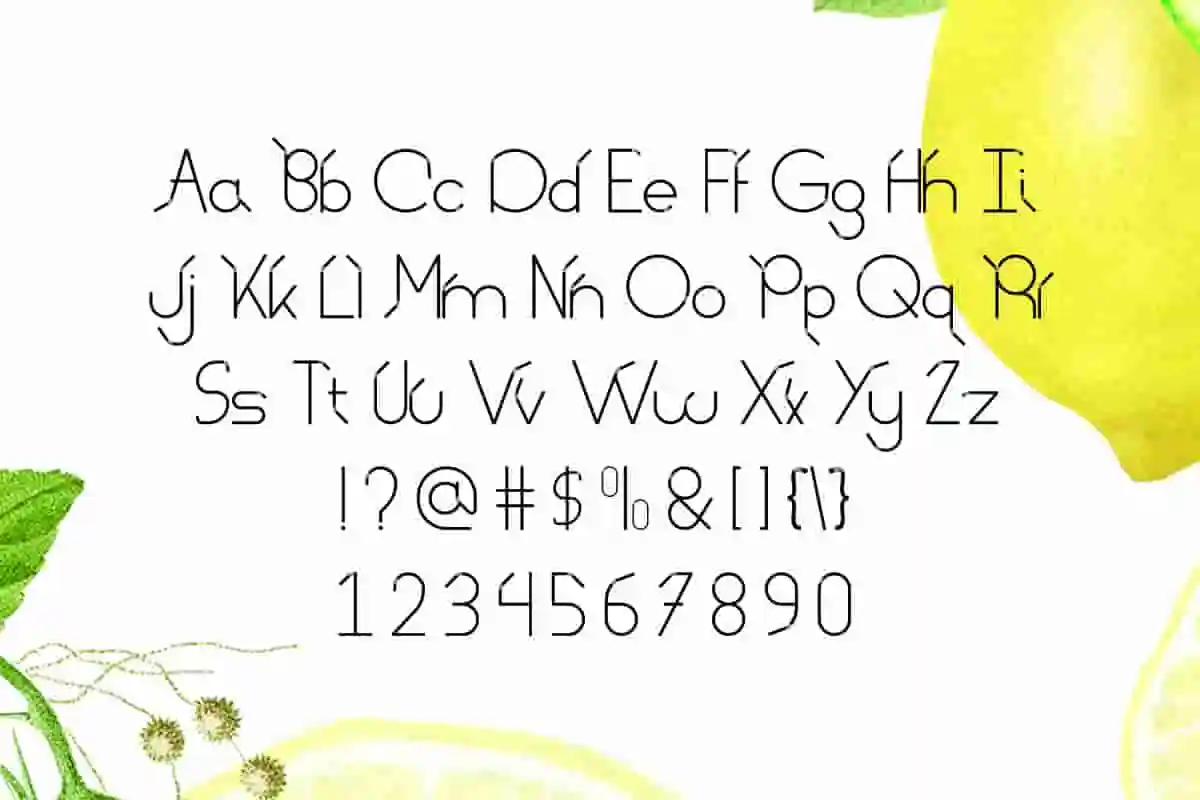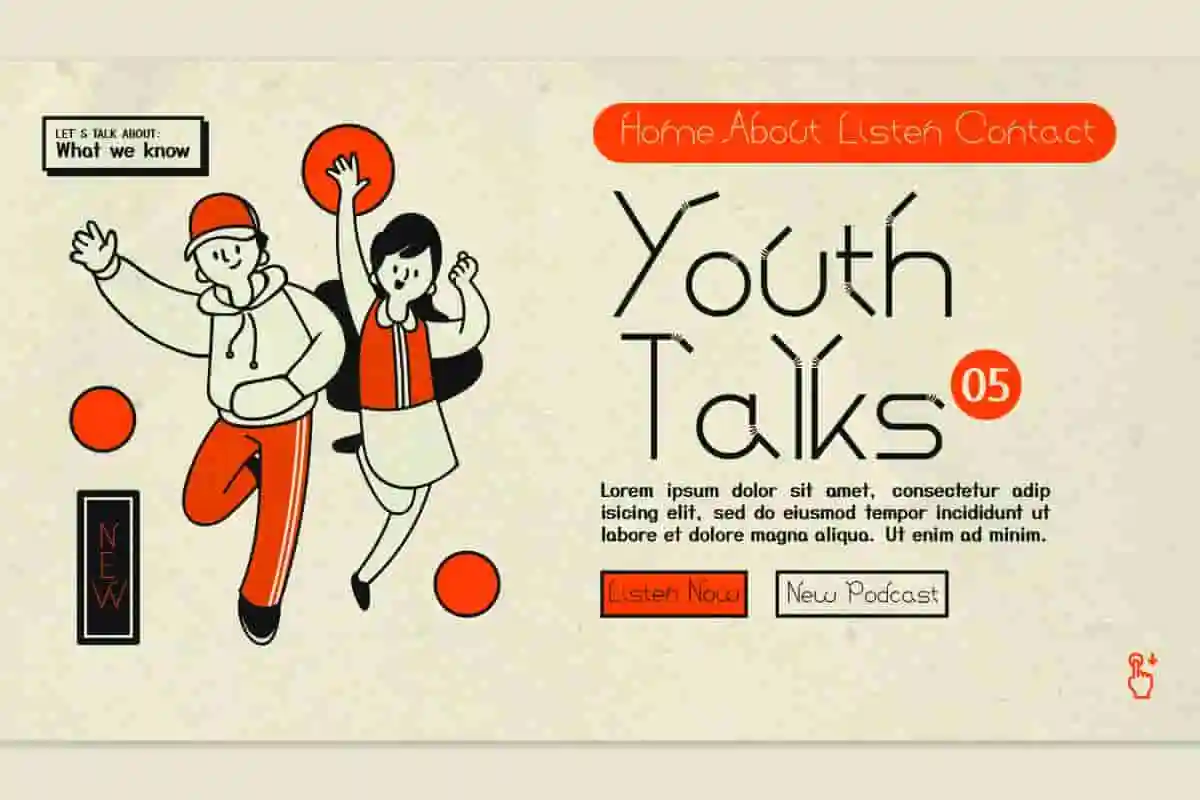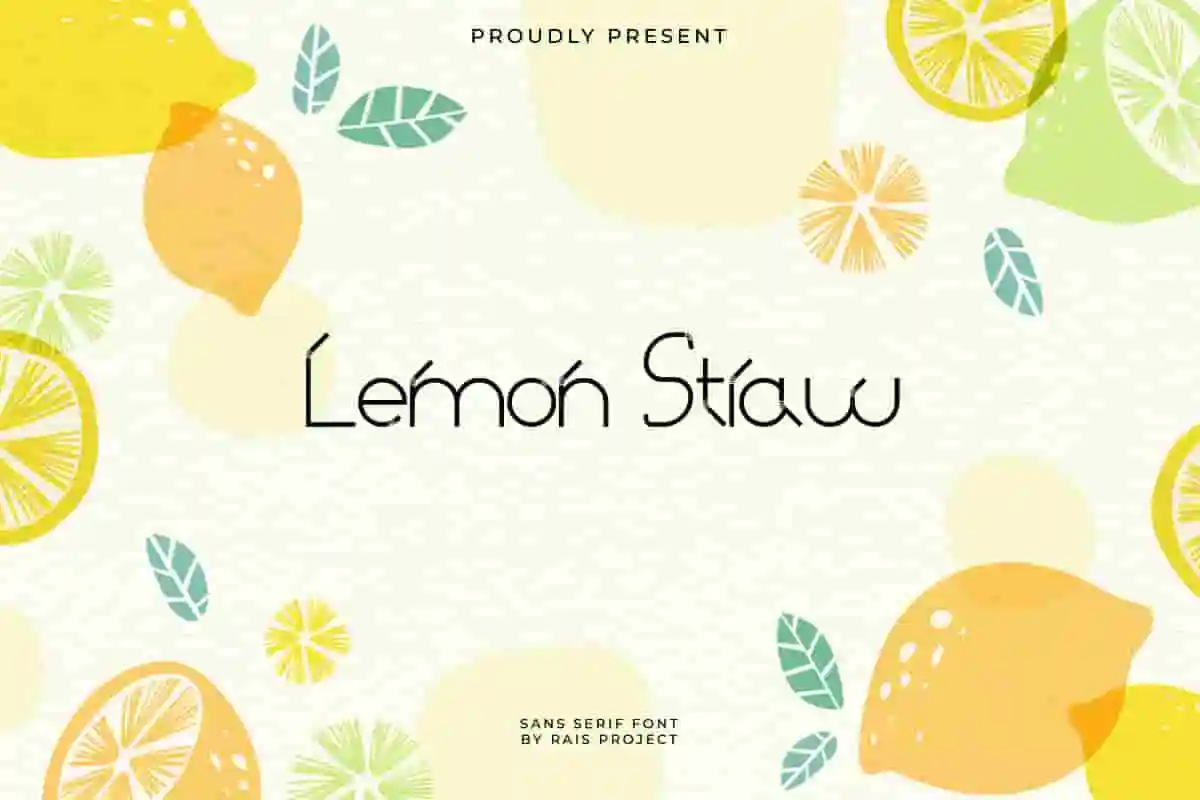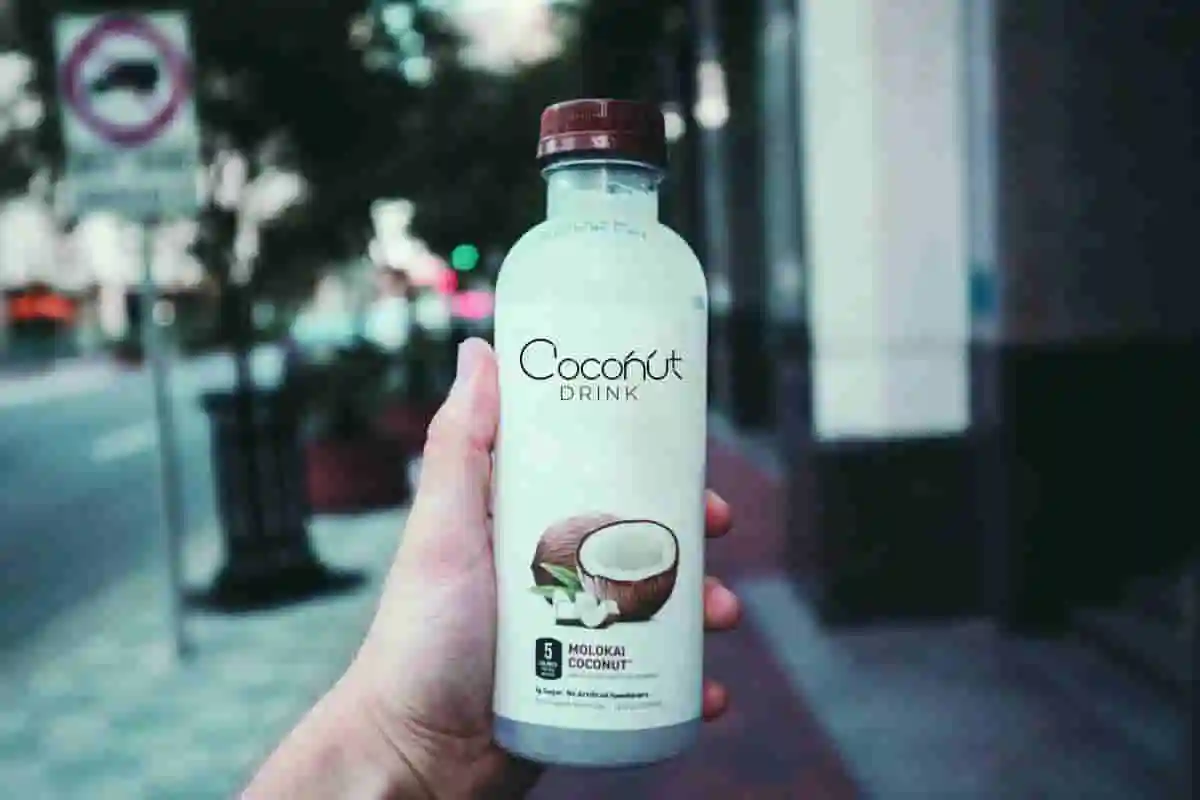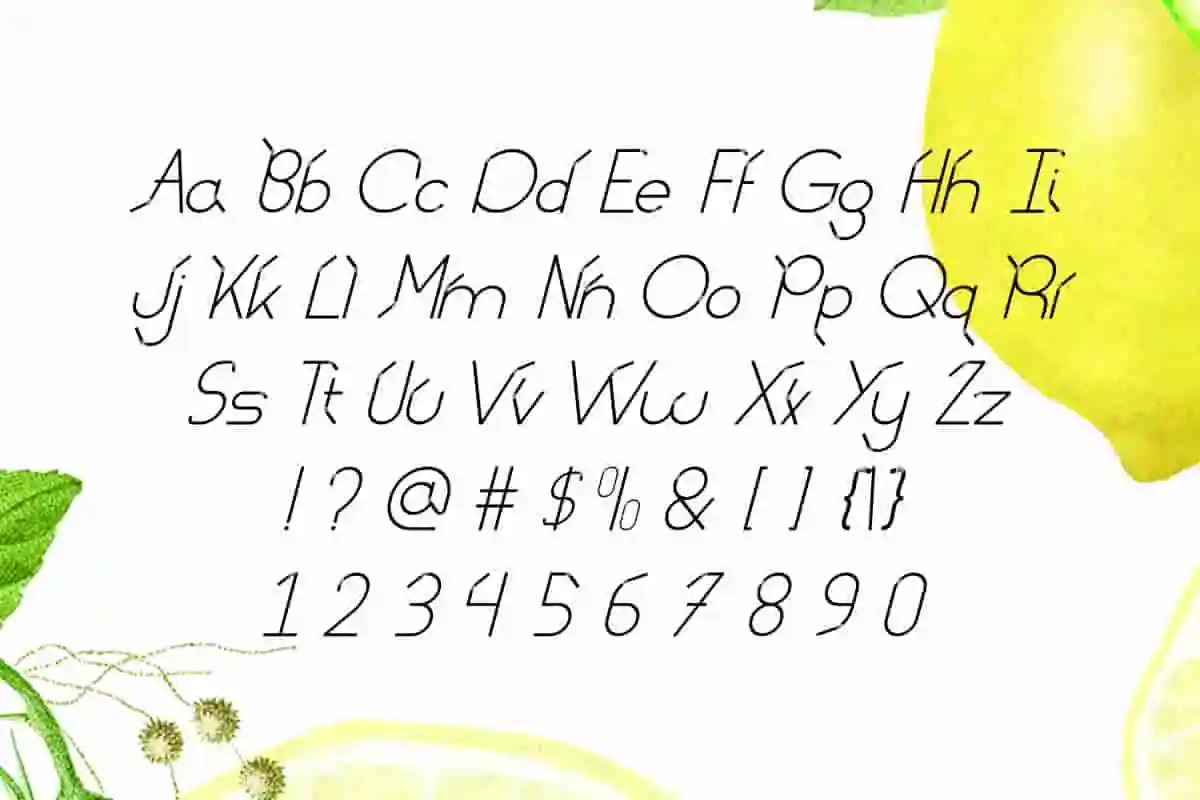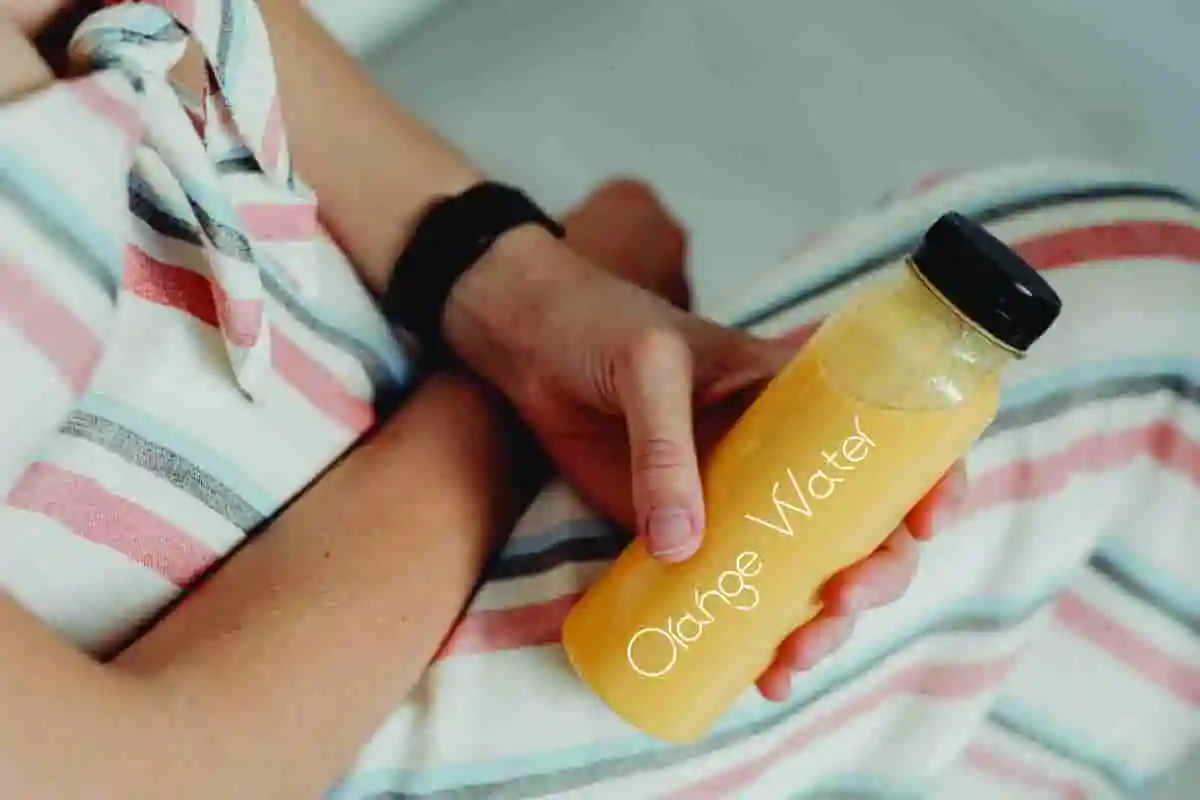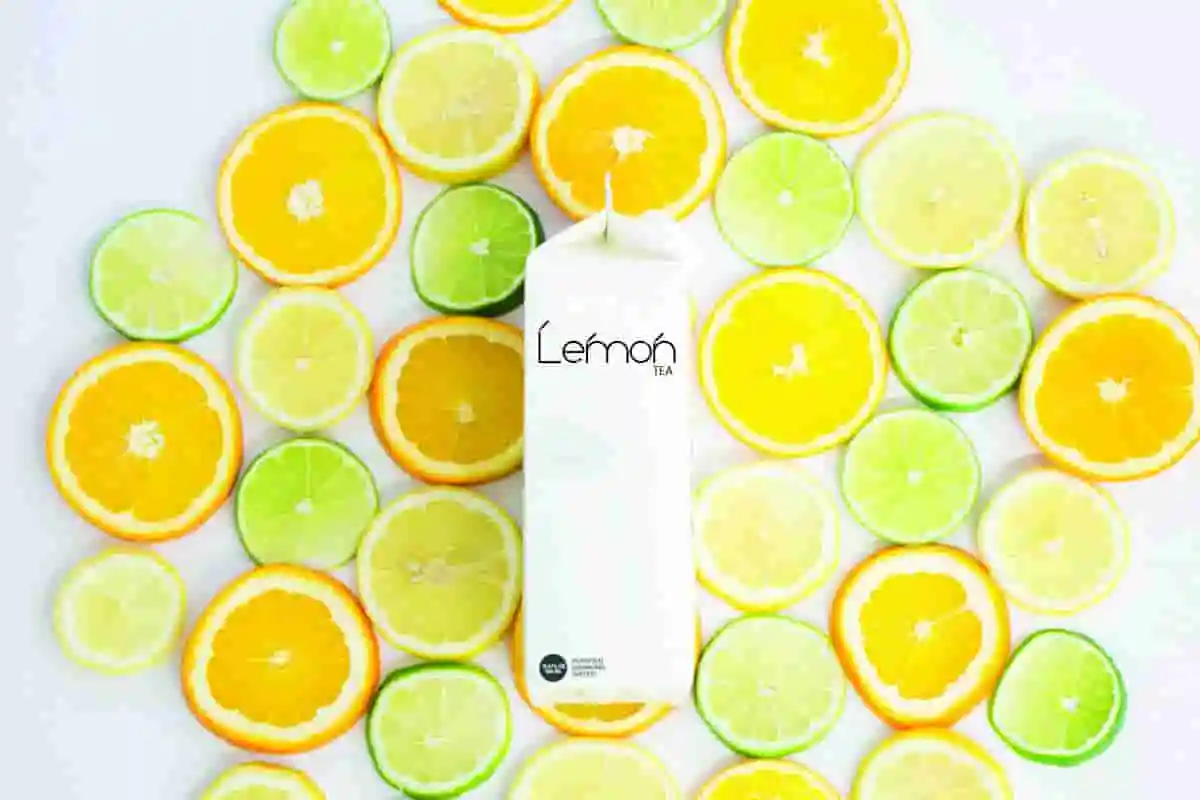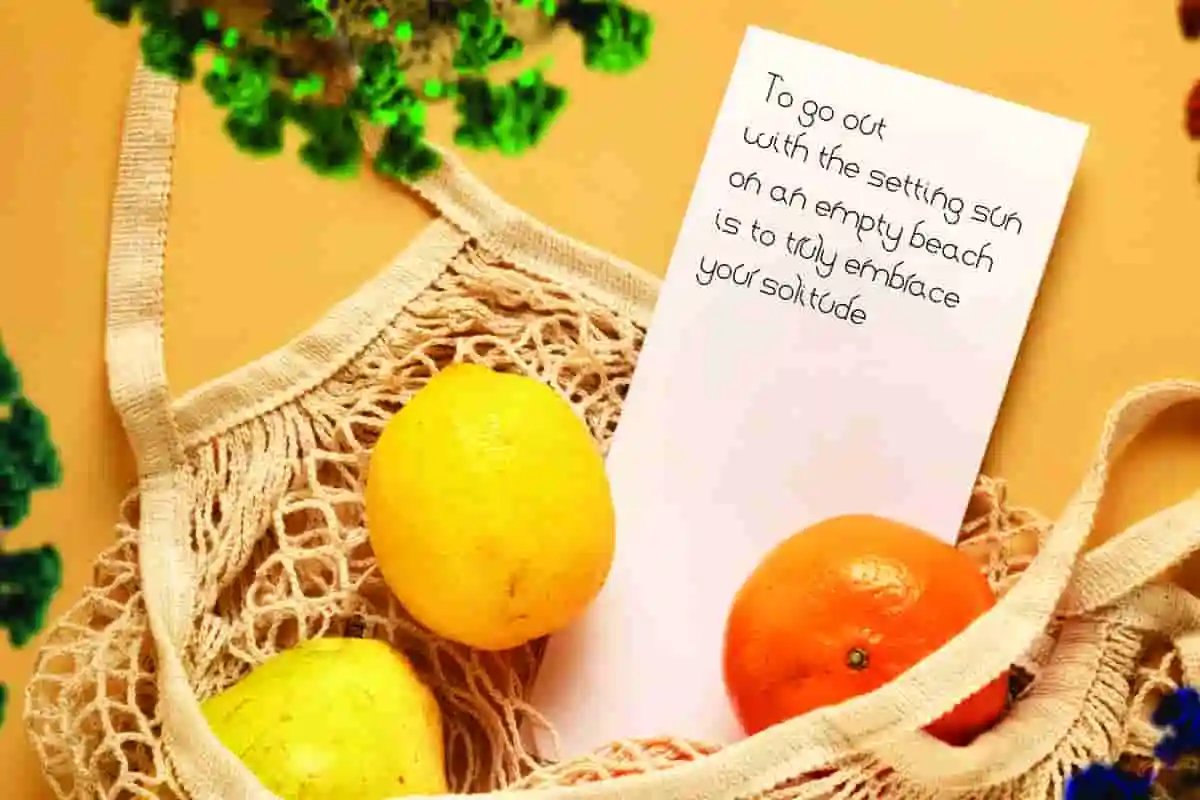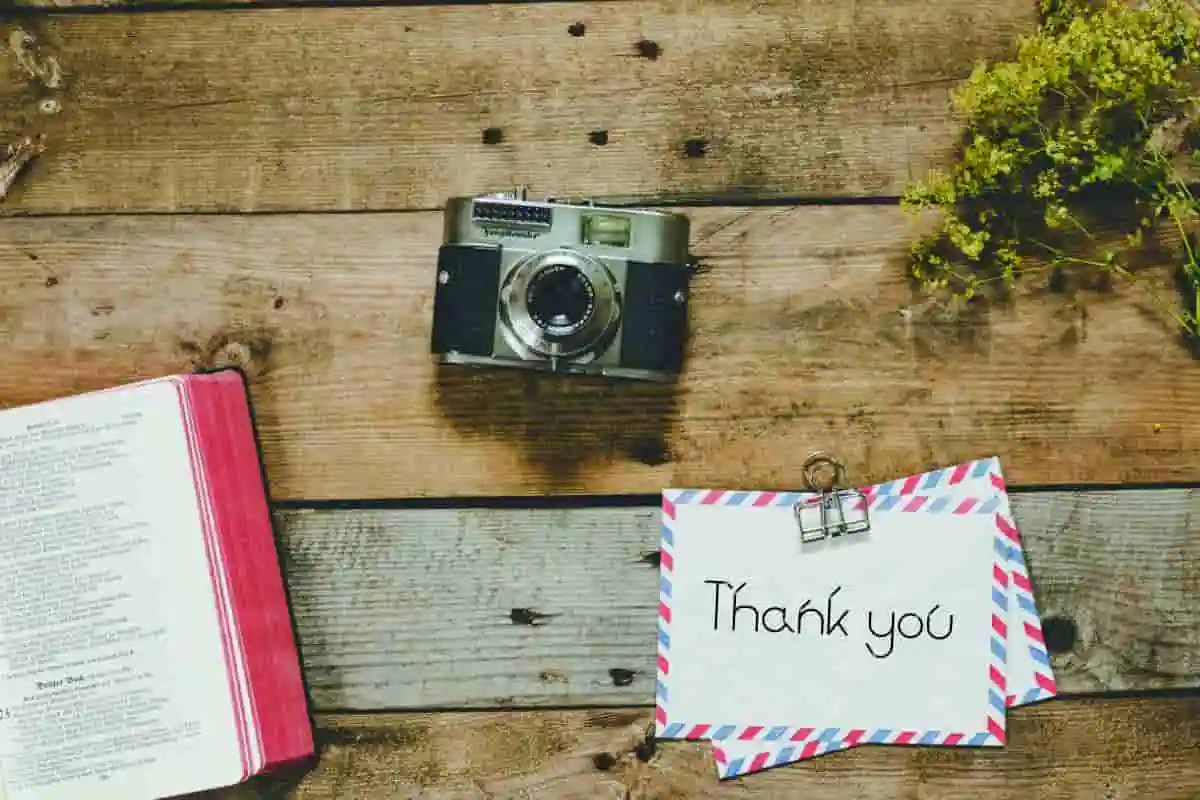
Lemon Straw Display Font
Lemon Straw Font is a display decorative sans serif font by RaisProject. It will be great for flyer, Invitation, branding, watermark, promotion, events, advertising etc
Lemon Straw a decorative sans serif font inspired from summer drinks vibes. You can see the demo font below. You can also input any word you want so you can see what it will look like :
Lemon Straw Font handcrafted With simple characters,Lemon Straw display Font includes full set of cool uppercase and lowercase letters, numerals, a large range of punctuation and ligatures. All letters has hand-lettered style to make it unique yet cool looking design. The font comes with two style options : regular and italic. On the package You will get: